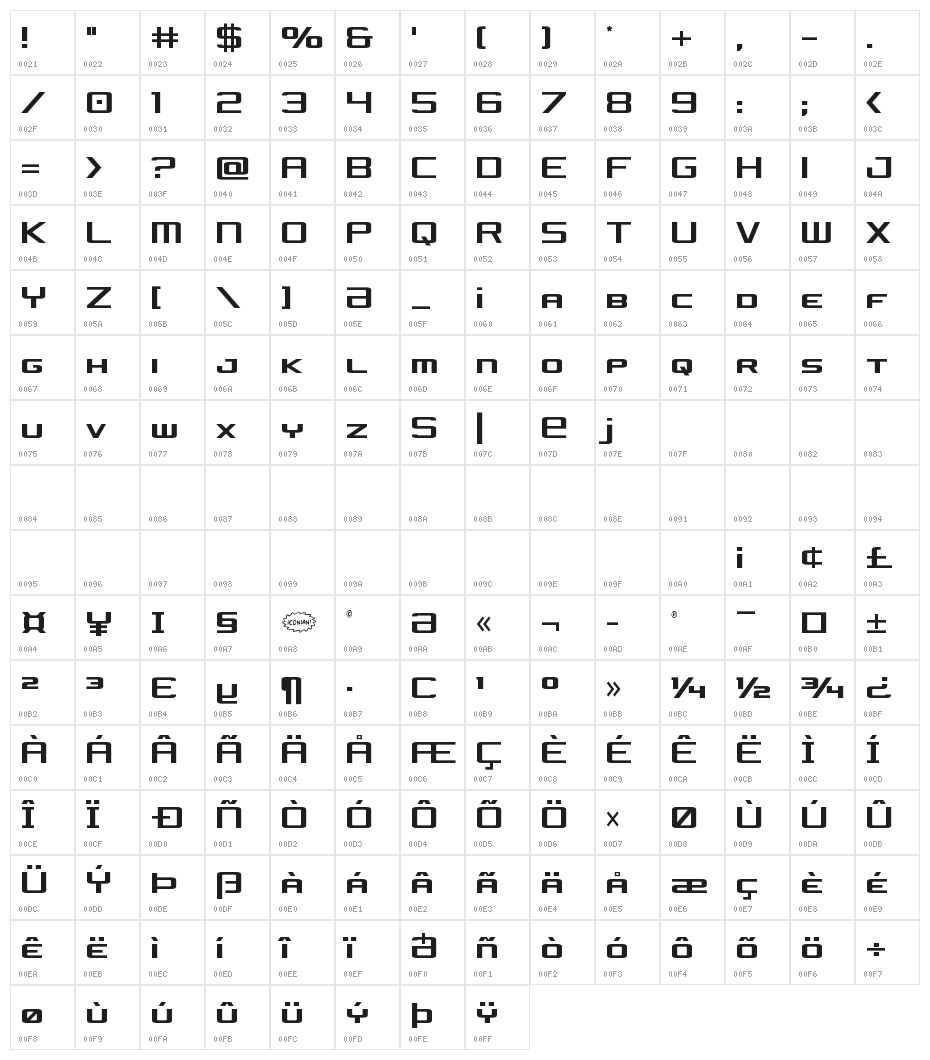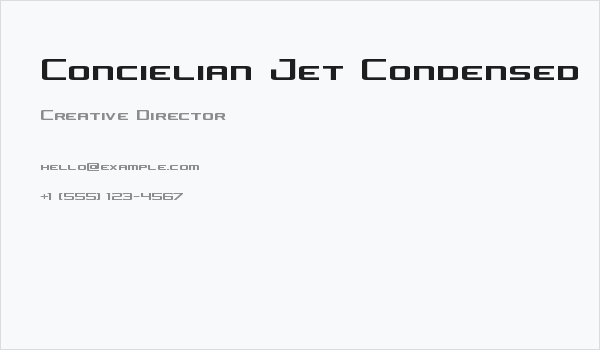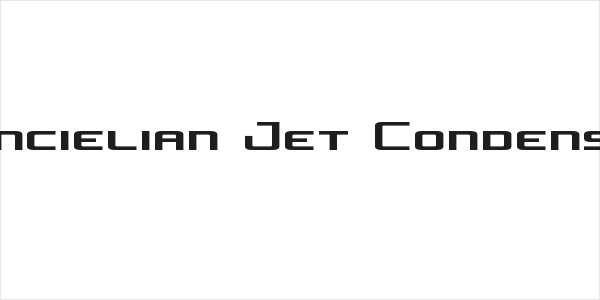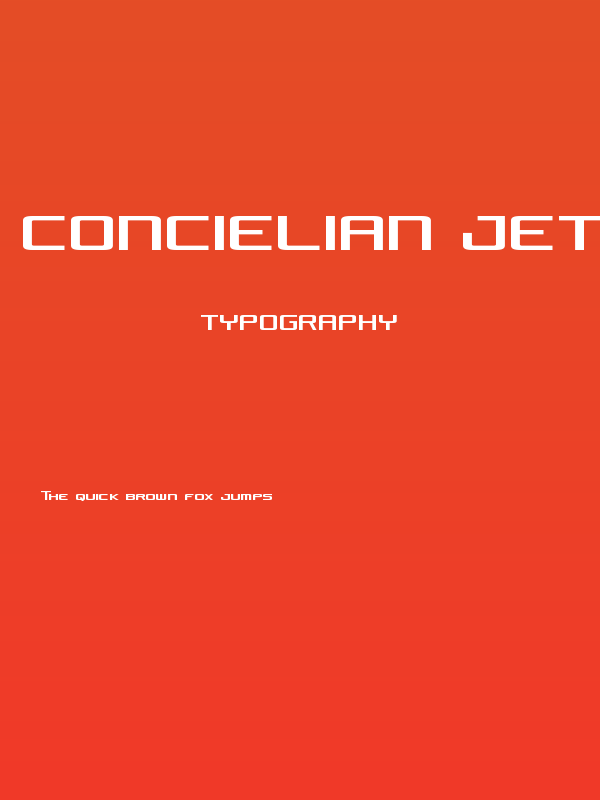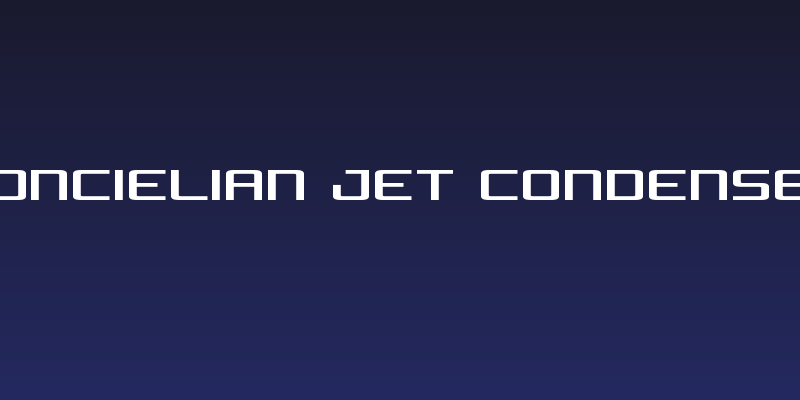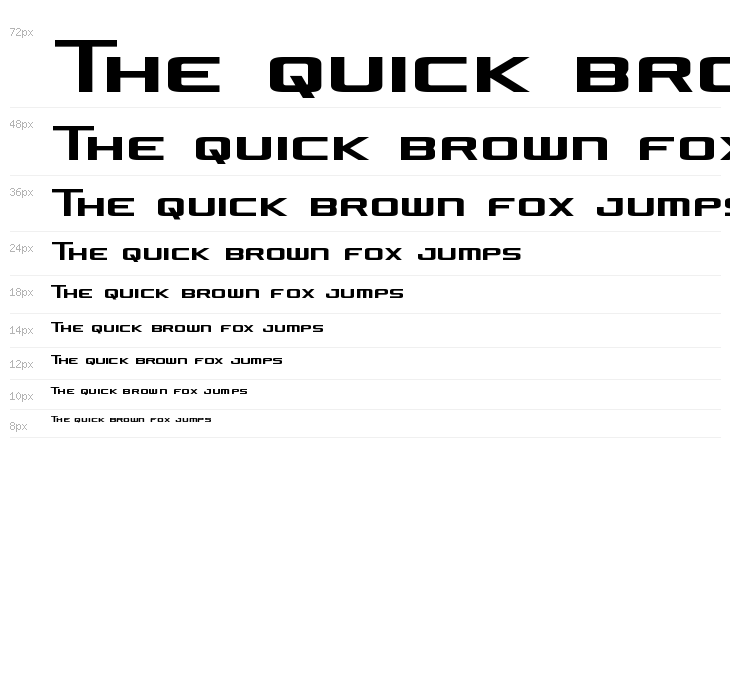
Concielian Jet Condensed Font
Concielian Jet Condensed Description
This font features a modern, geometric design with a condensed width, giving it a sleek and futuristic appearance. The characters are uniform in height, with sharp angles and clean lines that create a sense of precision and efficiency. The uppercase and lowercase letters maintain a consistent style, enhancing readability while retaining a distinct, tech-inspired aesthetic. The numerals are equally bold and clear, making them suitable for digital displays. Special characters are designed to match the overall style, ensuring a cohesive look across all text elements.
| Use Case | Headlines, Logos, Digital displays |
| Proposed Projects | Ideal for technology branding, digital interfaces, and modern advertising campaigns. |